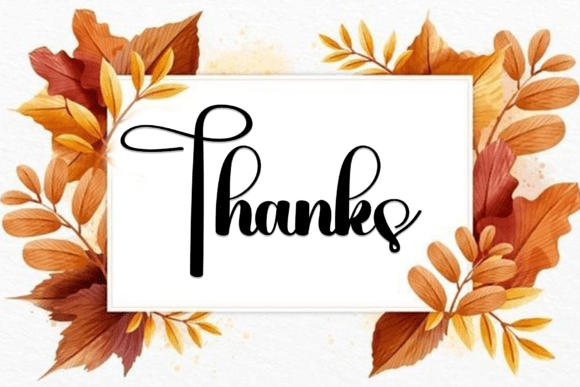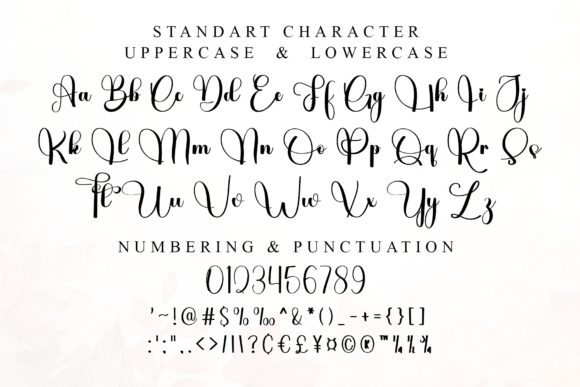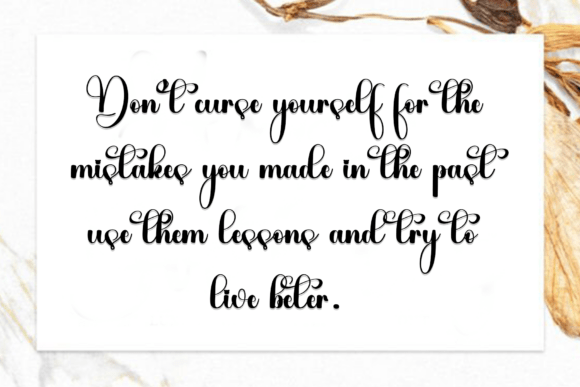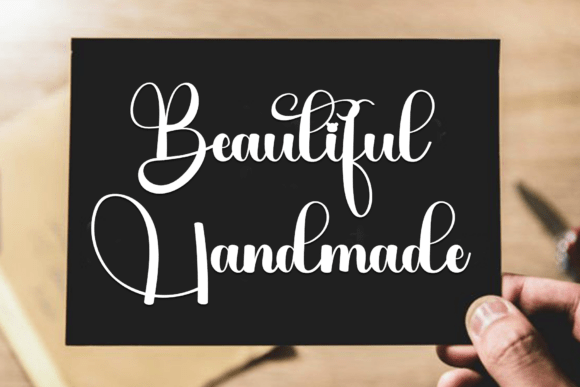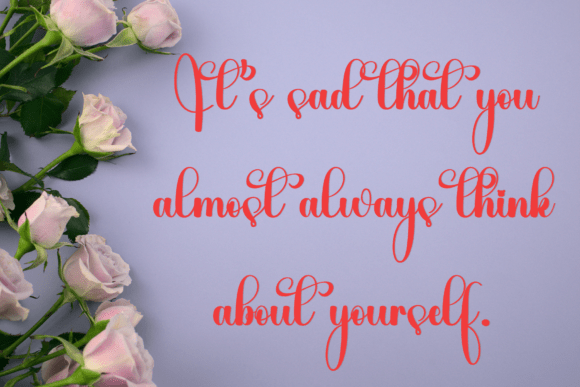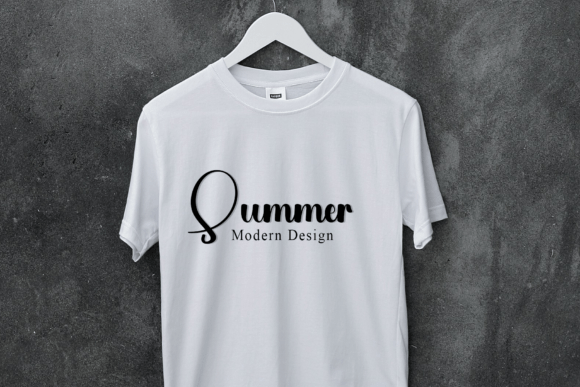
Cute Bear Font: A Festive and Merry Typeface for the Holiday Season
The holiday season is upon us, and with it comes the need for festive and fun designs that capture the spirit of the season. If you’re a designer or crafter looking for a typeface that embodies the magic of the holidays, look no further than the Cute Bear Font. This charming font is perfect for adding a touch of enchantment to your designs, and in this article, we’ll explore what makes it so special.
Cute Bear Font is a decorative typeface that is specifically designed to evoke the feeling of the holiday season. With its whimsical flair and festive elements, it’s the perfect choice for any project that requires a touch of holiday cheer. Whether you’re designing greeting cards, gift tags, or holiday-themed projects, this font is sure to bring a smile to your face and a touch of magic to your designs.
So, what makes Cute Bear Font so well-suited for holiday projects? For starters, its decorative elements and whimsical flair are perfectly suited to the festive and fun nature of the holiday season. The font’s playful and cheerful design is sure to add a touch of nostalgia and wonder to your designs, making it perfect for projects such as:
- Greeting cards: Whether you’re designing Christmas cards, Hanukkah cards, or holiday cards for any other occasion, Cute Bear Font is the perfect choice.
- Gift tags: Add a touch of festive flair to your gift tags with this charming font.
- Holiday-themed projects: From holiday posters to social media graphics, Cute Bear Font is the perfect choice for any holiday-themed project.
Bringing a Cheerful and Nostalgic Ambiance to Your Words
There’s something special about the Cute Bear Font that brings a cheerful and nostalgic ambiance to your words. Whether you’re designing for a client or working on a personal project, this font is sure to evoke the feeling of the holiday season and add a touch of magic to your designs.
Why Choose Cute Bear Font?
So, why should you choose Cute Bear Font for your holiday projects? Here are just a few reasons:
- Unique and festive design: This font is unlike anything else out there, with its whimsical flair and decorative elements.
- Perfect for holiday projects: Whether you’re designing greeting cards, gift tags, or holiday-themed projects, this font is the perfect choice.